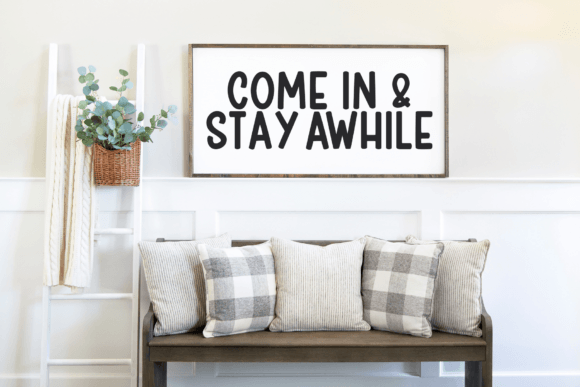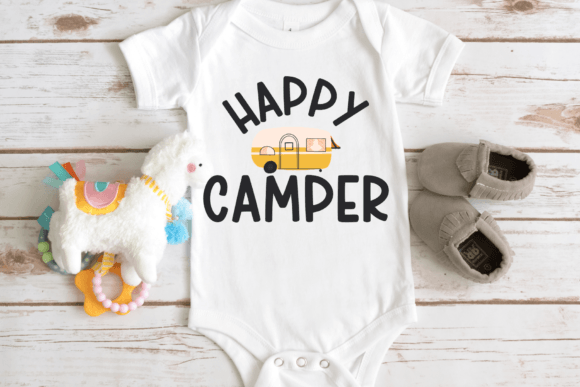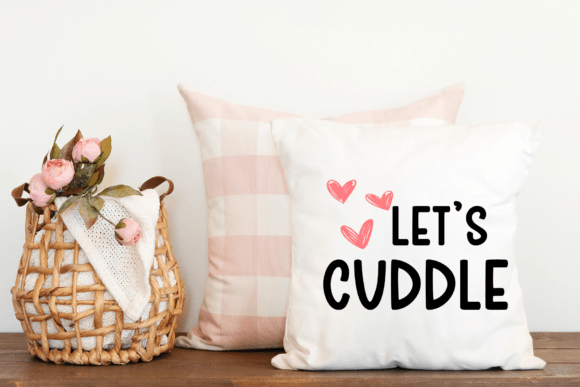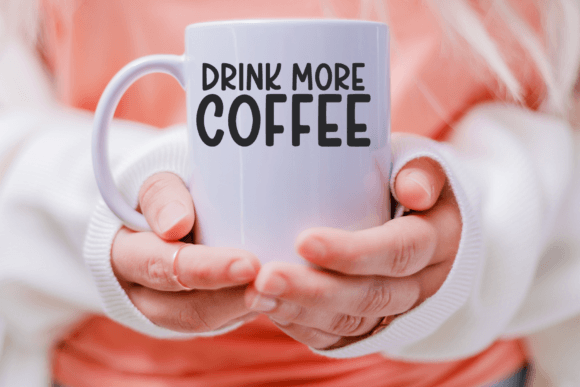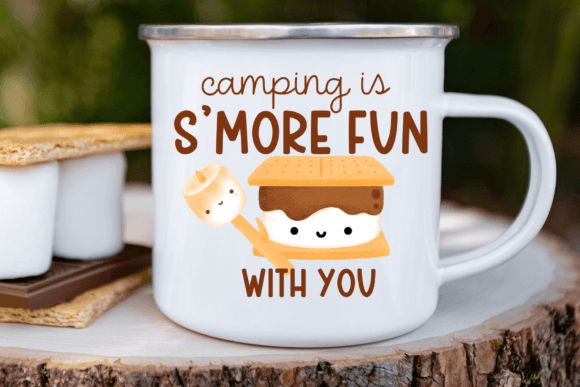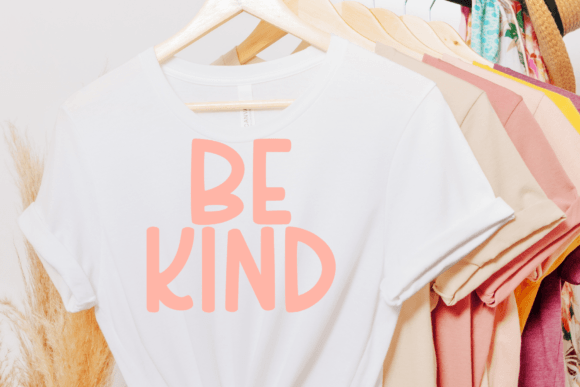
Introducing Campfire: A Bold Handwritten Font for Cricut
Are you a craft enthusiast looking for a unique and charming font to add a touch of personality to your Cricut designs? Look no further! We’re excited to introduce Campfire, a bold handwritten font for Cricut that’s perfect for all your creative projects. This delightful font is designed to bring a sense of whimsy and fun to your designs, making it a must-have for anyone who loves crafting, scrapbooking, or designing SVG files.
The Perfect Font for Cricut Designs
Campfire is a carefully crafted font that’s specifically designed for use with Cricut machines. Its playful and fun handwriting style is sure to add a touch of charm to any project, from greeting cards and invitations to scrapbook pages and DIY crafts. Whether you’re a seasoned crafter or just starting out, this font is sure to inspire your creativity and take your designs to the next level.
What Makes Campfire So Special?
So, what sets Campfire apart from other fonts? Here are just a few things that make it so special:
• Unique Handwritten Style: Campfire has a one-of-a-kind handwritten style that’s both playful and charming. Its bold lines and whimsical flourishes make it perfect for adding a touch of personality to your designs.
• Perfect for Cricut: This font is specifically designed for use with Cricut machines, making it easy to cut out letters, words, and phrases for your projects.
• Versatile: Campfire is a versatile font that can be used for a wide range of projects, from cards and invitations to scrapbook pages and DIY crafts.
Endless Possibilities for Your Creative Projects
With Campfire, the possibilities are endless! Here are just a few ideas to get you started:
• Create Custom Cards: Use Campfire to create custom greeting cards for birthdays, holidays, and special occasions.
• Make Beautiful Scrapbook Pages: Add a touch of whimsy to your scrapbook pages with this charming font.
• Design Eye-Catching Invitations: Use Campfire to create custom invitations for parties, weddings, and other special events.
• Make DIY Crafts: This font is perfect for making DIY crafts, such as signs, banners, and decorations.
Unlock Your Creative Potential with Campfire
Campfire is more than just a font – it’s a tool for unlocking your creative potential. With its playful and fun handwriting style, it’s sure to inspire you to try new things and push the boundaries of what’s possible with your Cricut machine.
In conclusion, Campfire is a bold handwritten font for Cricut that’s perfect for all your creative projects. Its playful and fun handwriting style adds a touch of whimsy and personality to any design, making it a must-have for craft enthusiasts and designers alike.